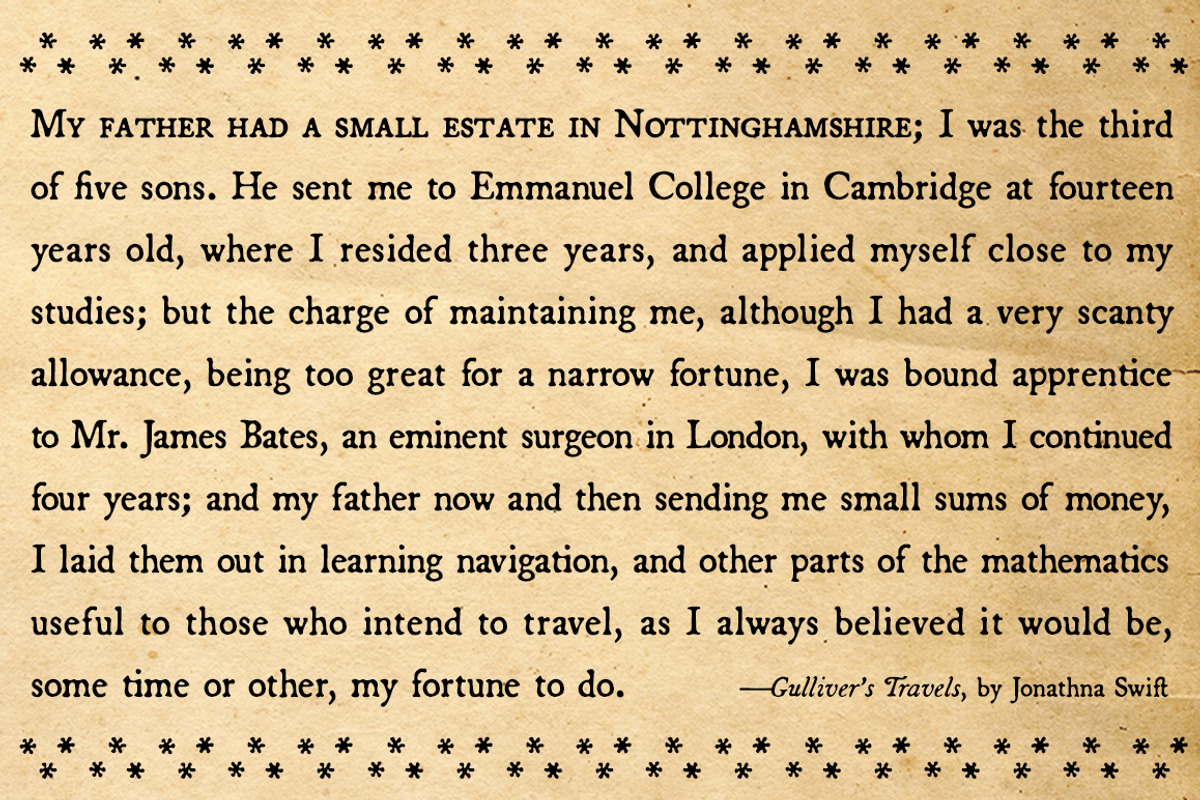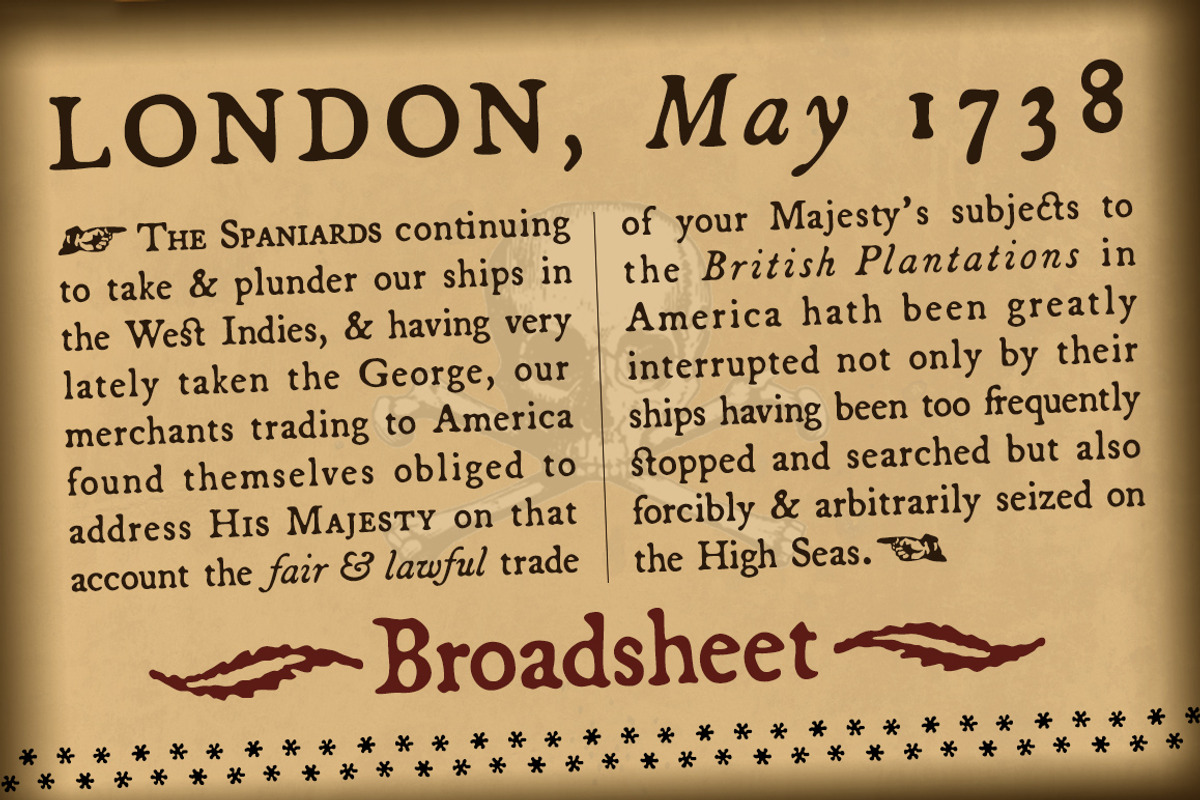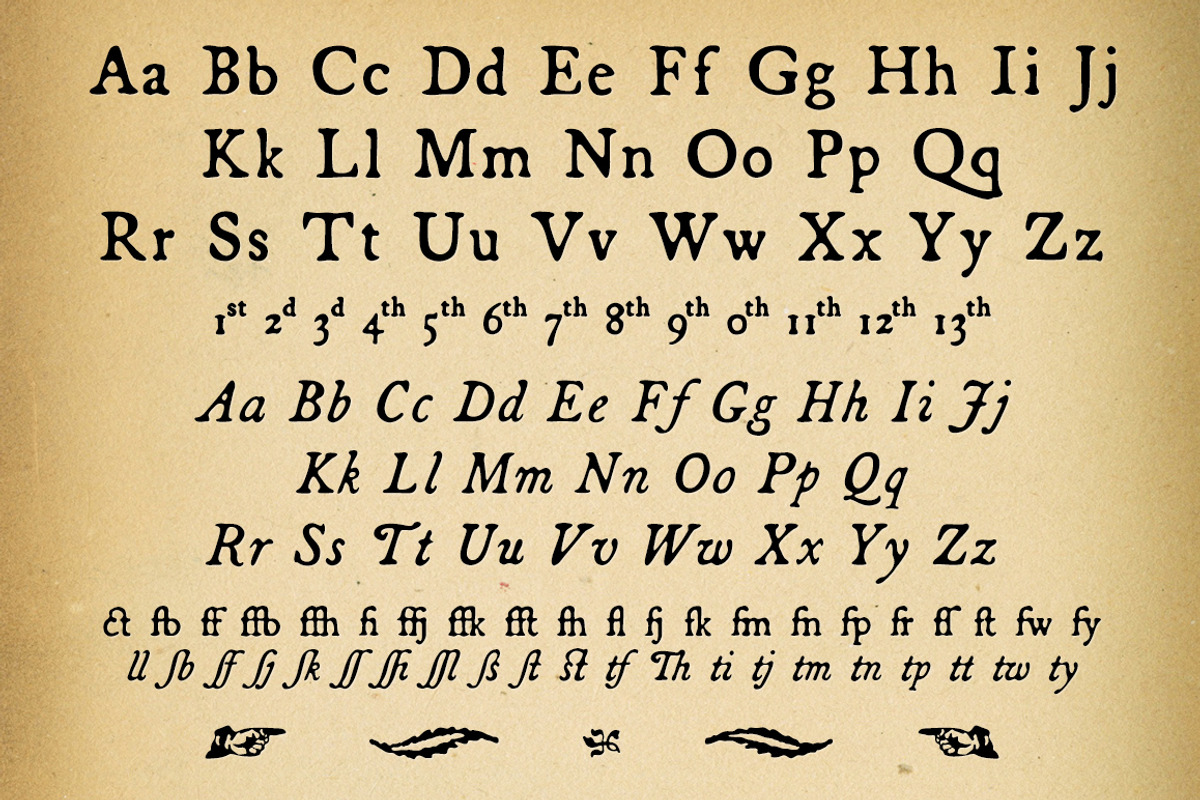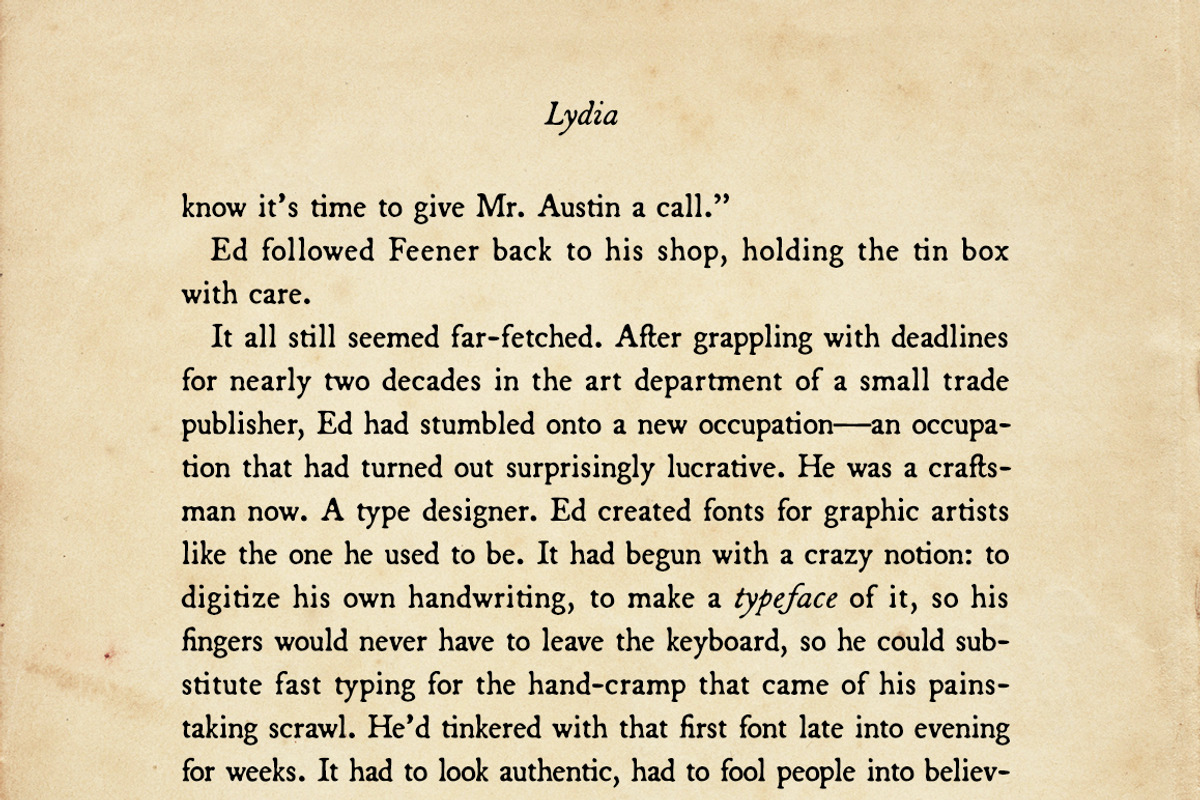
Broadsheet, an 18th century text font.
Broadsheet, an 18th century text font. by Three Islands Press is a font selected for branding, posters, packaging, typography.
- Both roman and italic styles give you all the double-s ligatures you could ever dream of.
- Both roman and italic styles come with true small caps, historical ligatures, old-style and lining figures, Central/Eastern European alphabe
- Broadsheet Regular
- Broadsheet Italic
Broadsheet, an 18th century text font. by Three Islands Press fits naturally into Branding, posters, packaging, typography.